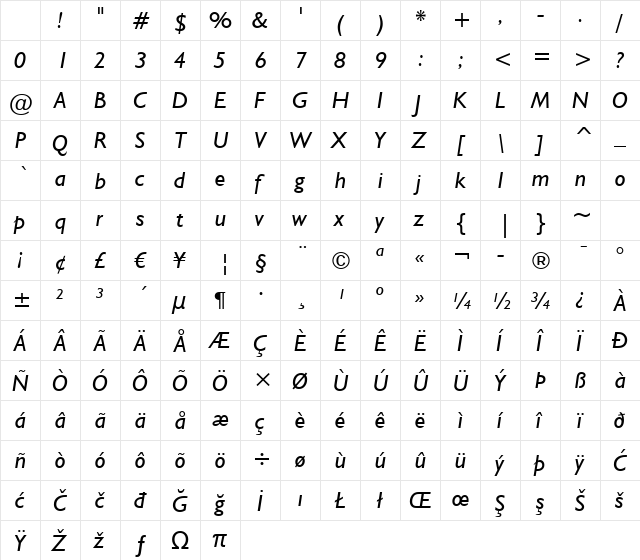
Complete Humanst521 BT Italic glyph index. Displaying only characters natively supported by Humanst521 BT Italic font.
Humanst521 BT is a composed and adaptable typeface that performs quietly and consistently across a wide range of design contexts. The slanted form adds forward momentum and visual energy.